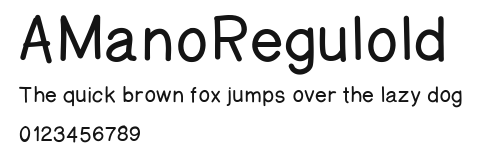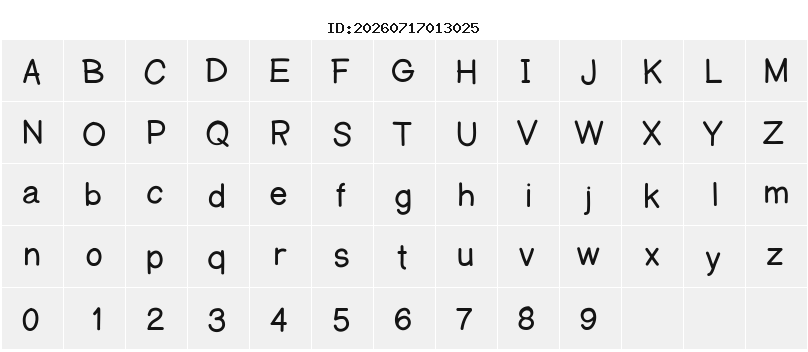
• Font Name: AManoRegulold
• Font Style: Regulold
• Full Font Name: AManoRegulold
About AManoRegulold.ttf
AManoRegulold.ttf is a modern, elegant sans-serif font designed for ultimate readability and visual harmony. Perfect for branding, headlines, web design, and print materials.